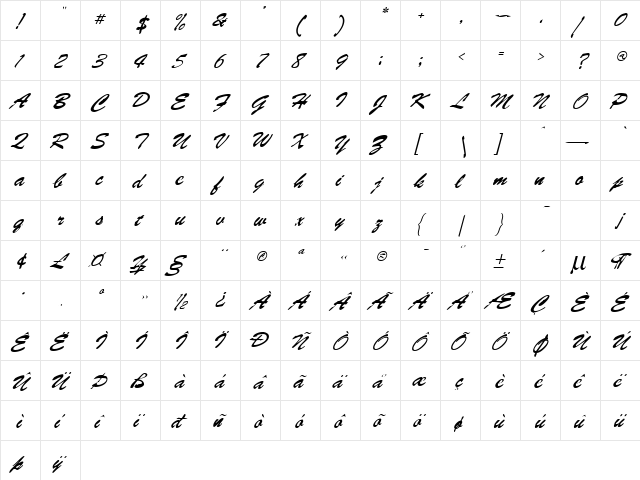
Brush-Ital Normal
Design Context for Brush-Ital Typeface
Brush-Ital flows with the natural rhythm of handwritten lettering, making it ideal for designs that call for warmth and personal expression.
Font Pairing: Combine Brush-Ital with a simple geometric sans for maximum contrast — the tension between flowing curves and clean structure is a classic typographic pairing.
Pro Tip: Pair Brush-Ital with a clean sans-serif for supporting text. The contrast between fluid script and geometric structure creates an elegant typographic hierarchy.